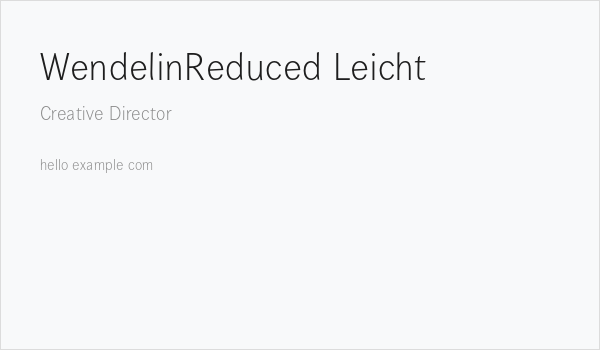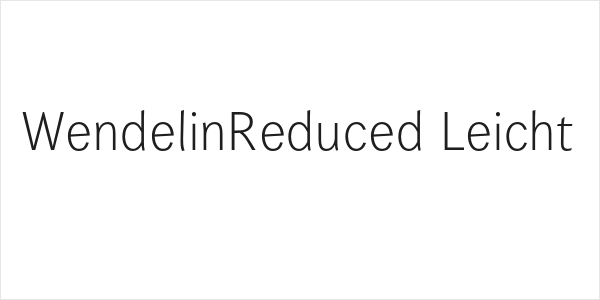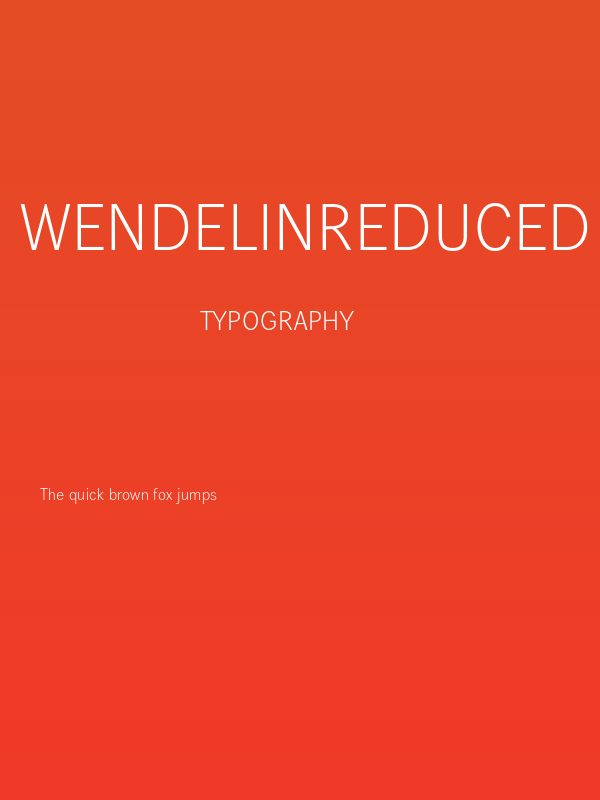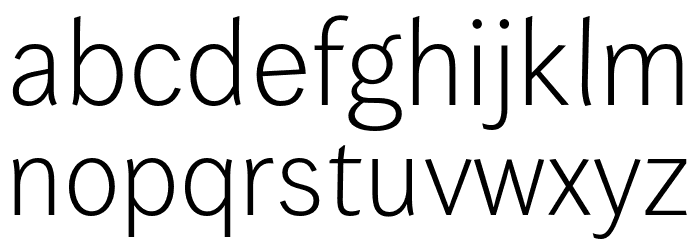
WendelinReduced-Leicht Font
WendelinReduced-Leicht Description
This font features a clean and modern sans-serif style with a focus on simplicity and readability. The characters are well-proportioned, with a consistent stroke width that gives it a uniform appearance. The uppercase letters are slightly taller than the lowercase, providing a clear distinction between the two. The font maintains a balanced character spacing, ensuring legibility even at smaller sizes. Its minimalist design makes it versatile for various applications, from digital to print media. The overall look is sleek and professional, suitable for contemporary design projects.
| Use Case | Headlines, Body text, Logos |
| Proposed Projects | Ideal for corporate branding, web design, editorial layouts, and user interfaces. |